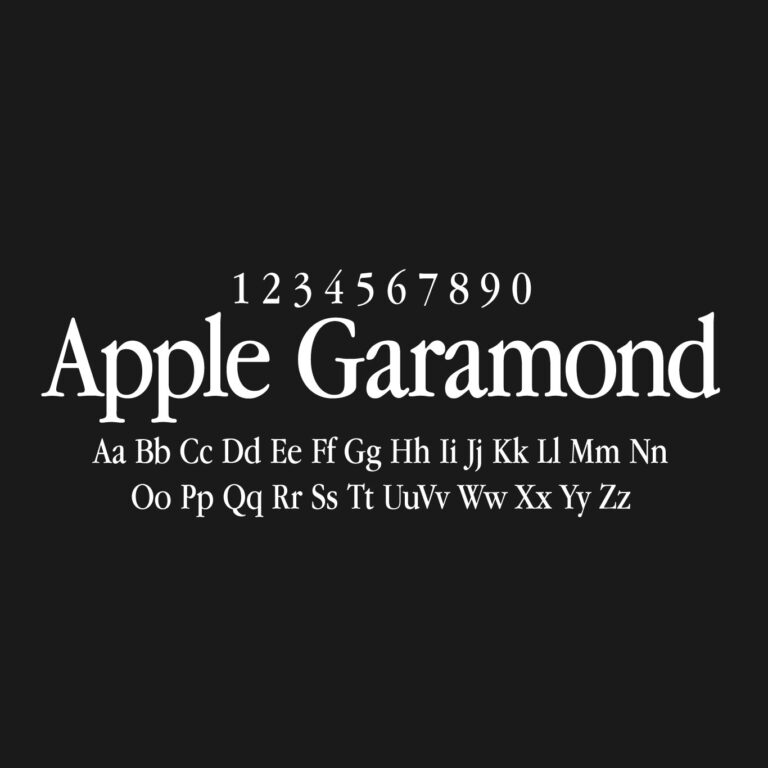
Apple Garamond is a classic serif typeface with elegant, readable letterforms and traditional Garamond-style proportions. It was historically bundled as a system font on classic Mac OS, which is where its name comes from — it is not an official Apple product name currently sold or licensed by Apple for general use.
Its refined structure makes it a familiar choice for editorial design, book covers, magazine layouts, branding, packaging, stationery, and any typography project that calls for a timeless serif feel.